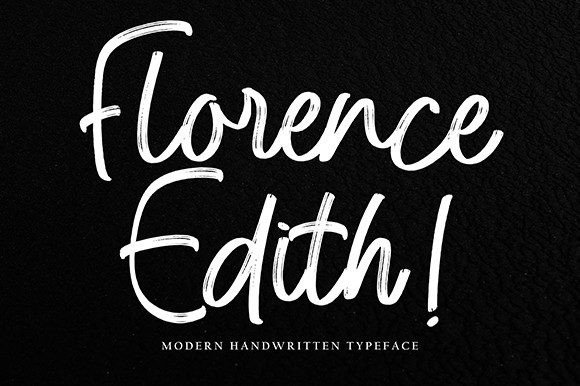
Introducing Florence Edith Font: The Modern Style for Your Creative Projects
Are you looking for a fresh and modern font to elevate your creative projects? Look no further than Florence Edith Font. This stunning font is perfect for a wide range of applications, from quotes and logos to blog headers, posters, branding, letters, invitations, and stationery. In this article, we’ll explore the features and benefits of Florence Edith Font, and show you how to make the most of this versatile typeface.
Key Features of Florence Edith Font
- Modern Style: Florence Edith Font boasts a sleek and contemporary design, making it perfect for projects that require a fresh and modern look.
- Versatility: This font is suitable for a wide range of applications, from digital projects like blog headers and social media graphics to print materials like posters, flyers, and invitations.
- Clean Lines: Florence Edith Font features clean lines and elegant curves, making it easy to read and visually appealing.
- Highly Legible: The font’s clear and concise design ensures that your text is easily readable, even at small sizes.
Florence Edith Font is a versatile and modern typeface perfect for a wide range of creative projects. With its clean lines, elegant curves, and highly legible design, this font is sure to elevate your designs and make a lasting impression. By following the typography tips and project ideas outlined in this article, you’ll be able to unlock the full potential of Florence Edith Font and take your creative projects to the next level.